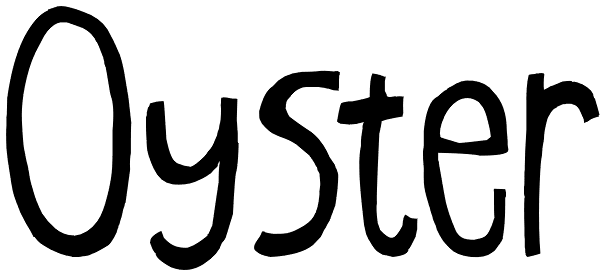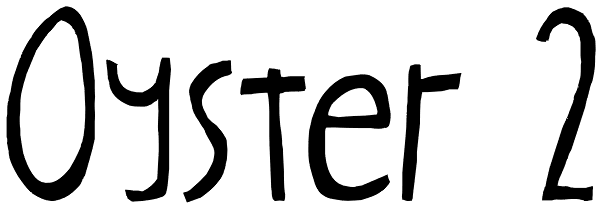
Oyster
The Oyster family is the handiest toolkit if you're in that hand-drawn mood. It counts 3 styles: regular, counterless and outlines (hand-drawn outlines, not digital ones!). Each style has an alternate version, providing flexibility and uniqueness to...